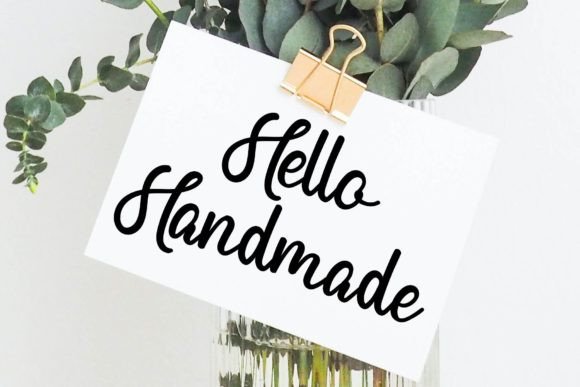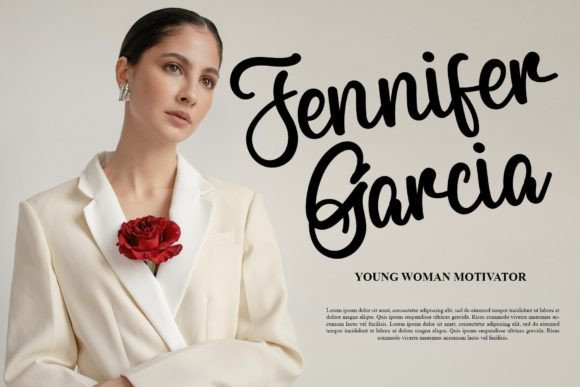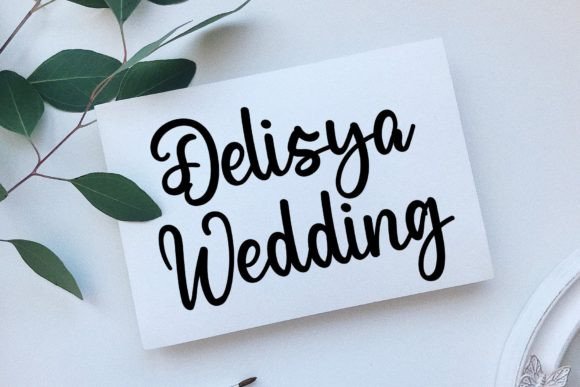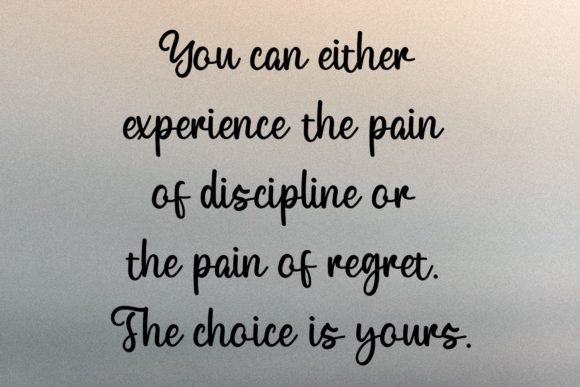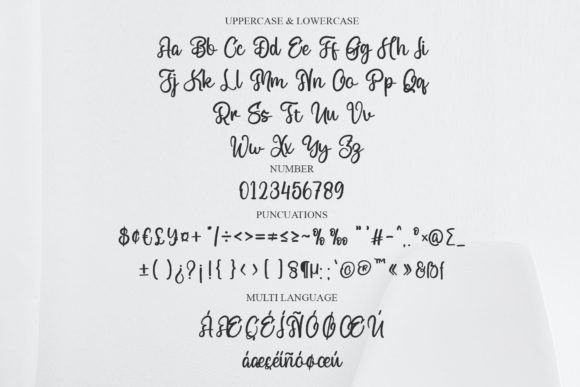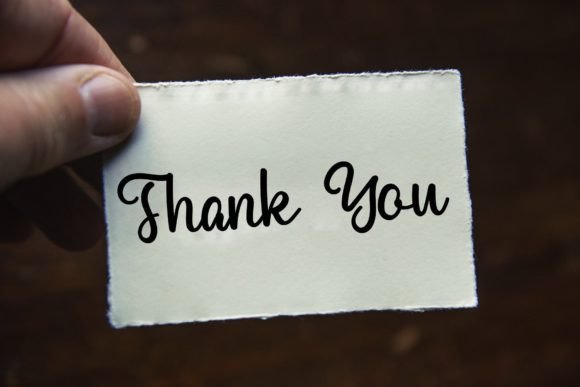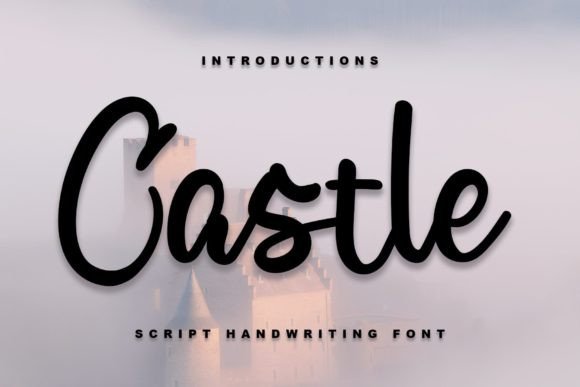
Introducing Castle Font: The Epitome of Elegance and Charm
In the realm of typography, few fonts manage to convey the essence of sophistication and whimsy as effectively as Castle Font. This enchanting typeface has captured the hearts of designers and crafters worldwide, and for good reason. Castle Font is not just a font; it’s an experience. It brings a level of elegance and personal touch to any design project, making it a favorite among those looking to add a handwritten charm to their creations.
The Versatility of Castle Font
One of the standout features of Castle Font is its incredible versatility. Whether you’re working on wedding invitations, thank you cards, inspirational quotes, greeting cards, logos, or business cards, this font seamlessly integrates a touch of elegance and whimsy. Its adaptability makes it an indispensable tool in the arsenal of designers and crafters who strive to create unique and memorable designs.
Wedding Invitations and Beyond
Wedding invitations are a perfect canvas for Castle Font. The font’s flowing lines and elegant curves bring a romantic and sophisticated feel to wedding announcements, setting the tone for what promises to be a beautiful and memorable occasion. Beyond weddings, Castle Font’s charm is equally captivating in other areas such as:
- Thank You Cards: Adding a personal and heartfelt touch to expressions of gratitude.
- Quotes: Elevating inspirational and thought-provoking sayings with a touch of elegance.
- Greeting Cards: Making birthday, holiday, and get-well cards more special and personalized.
- Logos: Infusing brand identities with a sense of sophistication and approachability.
- Business Cards: Standing out in a sea of standard fonts with a memorable and stylish presence.
Why Designers and Crafters Love Castle Font
Designers and crafters adore Castle Font for several reasons:
- Ease of Use: Despite its elegant appearance, Castle Font is surprisingly easy to use, even for those who might not be seasoned typography experts.
- High Readability: The font’s clarity ensures that messages are conveyed effectively, without sacrificing aesthetic appeal.
- Customization: Castle Font lends itself beautifully to various design customizations, allowing for endless creativity.
- Emotional Connection: The font has a way of evoking emotions, making designs more impactful and memorable.
Tips for Using Castle Font Effectively
To make the most out of Castle Font, consider the following tips:
- Pair with Complementary Fonts: Combining Castle Font with simpler fonts can create a visually appealing contrast.
- Adjust Size and Color: Experimenting with different sizes and colors can help emphasize certain parts of your design.
- Use in Digital and Print: Castle Font’s versatility extends to both digital media and print, making it suitable for a wide range of projects.
Castle Font is more than just a typeface; it’s a design element that brings charm, elegance, and a personal touch to any project. Its versatility, readability, and aesthetic appeal make it a beloved choice among designers and crafters. Whether you’re creating wedding invitations, crafting inspirational quotes, or designing business cards, Castle Font is sure to elevate your designs to new heights of sophistication and whimsy.